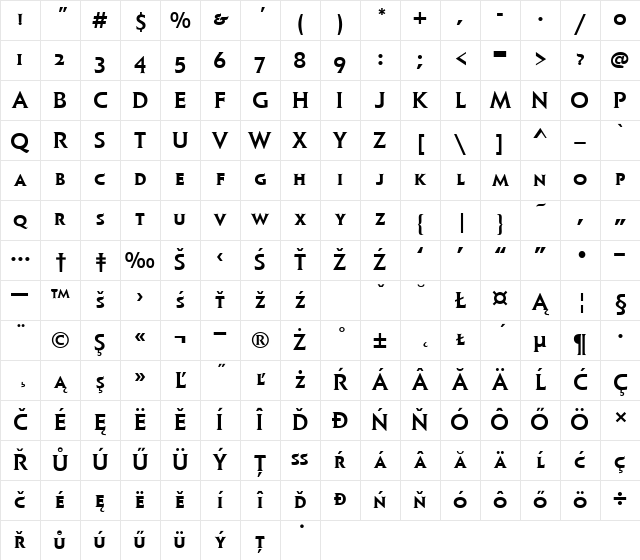
ElanItcSCTEEMed Regular
Design Context for ElanItcSCTEEMed
ElanItcSCTEEMed is a composed and adaptable typeface that performs quietly and consistently across a wide range of design contexts.